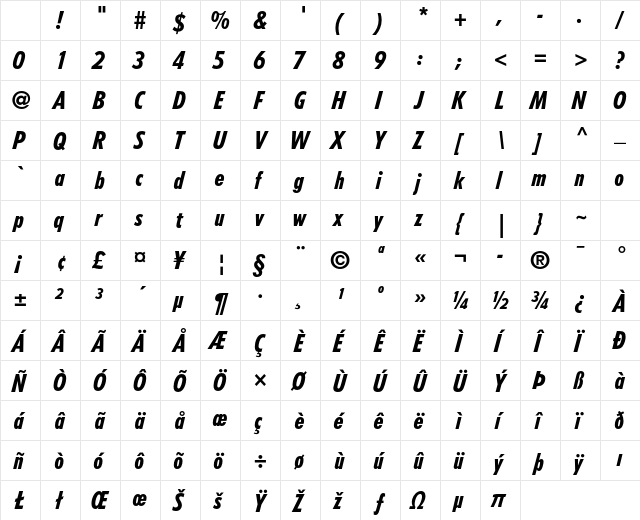
Tempo Std Heavy Condensed Italic
Style: Heavy Condensed Italic
Designer: R. Hunter Middleton
Complete Tempo Std Heavy Condensed Italic glyph index. Displaying only characters natively supported by Tempo Std Heavy Condensed Italic font.
Design Context for Tempo Std
Tempo Std is a composed and adaptable typeface that performs quietly and consistently across a wide range of design contexts. The slanted form adds forward momentum and visual energy. Its narrow stance lets it pack a punch even in space-constrained designs.